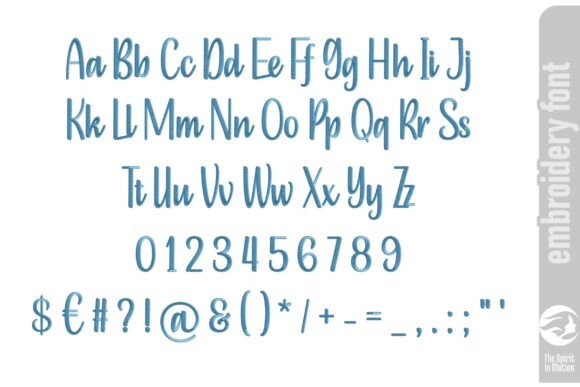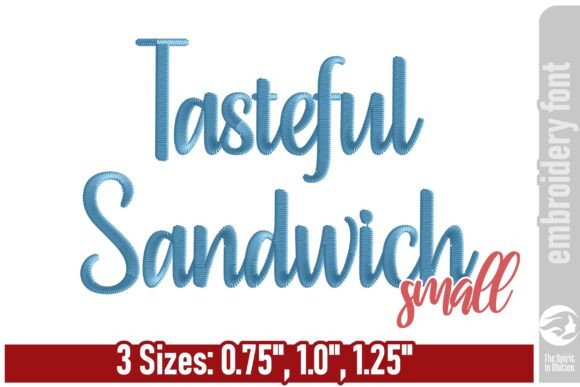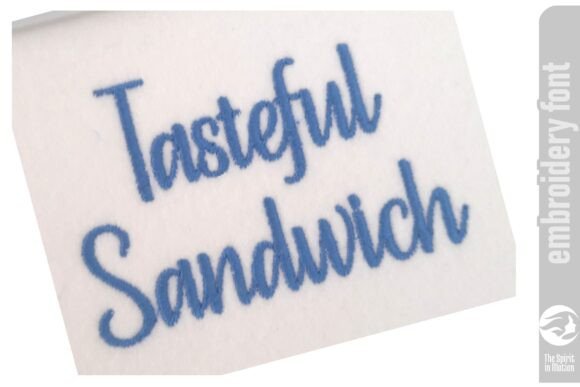
Tasteful Sandwich Embroidery Font
Introducing Tasteful Sandwich, a refined yet effortlessly stylish narrow script embroidery font. Designed with a perfect balance of simplicity and elegance, this font features delicate strokes, and a graceful flow that adds charm to any embroidery project.